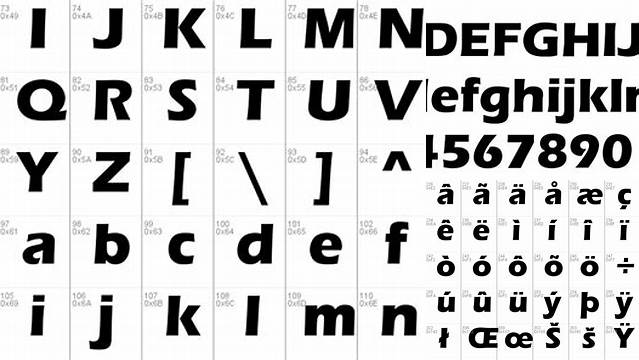
Free ITC Eras Bold Font: Your Guide
ITC Eras Bold Font: A Deep Dive into a Timeless Classic
Alright, first things first: What is ITC Eras Bold? In a nutshell, it's a bold, clean sans-serif font that's been a design staple for decades. Think of it as a versatile workhorse – equally at home in headlines, body text, and everything in between. This typeface, designed by Albert Boton and published by ITC (International Typeface Corporation) in 1988, is characterized by its strong, geometric forms and easy readability. It's a font that grabs attention without being overly fussy, making it a great choice for a wide range of projects, from branding to websites. The ITC Eras family actually has a range of weights and styles, but the Bold version is particularly popular for its impact and legibility. When you think of ITC Eras Bold, you are likely picturing the font used in several well-known logos and marketing materials. This is because of its clean and modern look. The letterforms are simple and clear, and the bold weight ensures that the font is easily readable from a distance. The font's legibility makes it a great choice for both print and digital media. In today's world, the ITC Eras Bold font remains a favorite choice among graphic designers, marketers, and anyone who needs a reliable and impactful typeface. Its enduring popularity is a testament to its timeless design and adaptability. It's a font that you can always count on to deliver a professional and polished look. The font has a bold and sturdy appearance, making it perfect for headings, titles, and other attention-grabbing elements. It offers a balance of elegance and boldness, making it ideal for conveying a sense of confidence and sophistication. The font's versatility allows it to be used across a wide range of design projects. Whether you're working on a website, a brochure, or a presentation, the ITC Eras Bold font is a fantastic choice. The font’s versatility also lends itself well to various design styles. It can be used in minimalist designs, as well as more complex layouts. Its clean lines and strong presence ensure that your message will be clear and impactful. Many designers appreciate the ITC Eras Bold font because it is easy to read and looks great in a variety of contexts. Its adaptability makes it a great investment for your design library. The use of the ITC Eras Bold font is a sure way to add a touch of sophistication and style to your designs. It gives a clean and modern look that complements any project. The font provides a professional appearance that enhances readability and clarity. When choosing a typeface, you can't go wrong with the ITC Eras Bold font. It provides both style and practicality. Its consistent presence in the design world is a testament to its enduring appeal. It is also a great choice for designers who want to deliver a strong message. The boldness of the font adds a sense of authority. Many designers and businesses use the ITC Eras Bold font to create a strong brand identity. It's a tool that will always be relevant in your creative toolkit. ITC Eras Bold’s versatility means it works well for both print and digital media. You can use it in a variety of projects, including brochures, websites, and presentations. It is a popular choice for a reason. The font's clean lines and bold presence ensure that your message will be clear and impactful. If you are a graphic designer or someone who appreciates good design, then the ITC Eras Bold font is a great choice. It is a versatile and reliable typeface that will serve you well for years to come. It is truly a classic font. The font is suitable for both formal and informal designs. Its adaptability to different design styles is one of its most appealing features. Consider using the ITC Eras Bold font for your next project. Its simplicity and strength make it a great choice. The font is also an easy read. This ensures that your audience can easily understand your message. The ITC Eras Bold font is a fantastic choice for anyone looking for a timeless and impactful typeface. This font is always a reliable option. The ITC Eras Bold font makes any design look professional and stylish.
Exploring the History and Design of ITC Eras Bold
The story of the ITC Eras Bold font began in the late 1980s. Albert Boton, the brilliant designer behind it, envisioned a typeface that was both modern and functional. He succeeded in crafting a font that was clean, clear, and instantly recognizable. The ITC (International Typeface Corporation) released it to the public, and the font quickly gained popularity. The font's clean design and readability were perfect for the evolving design landscape. Its simple, geometric letterforms were a breath of fresh air compared to the more ornate typefaces of the time. This font offered a sense of modernity that resonated with designers. The design of the font is characterized by its bold weight, which makes it stand out. The font’s proportions make it both attractive and easy to read, which is important for both display and body text. The rounded terminals of the letters and the consistent stroke weights contribute to its overall clarity and visual appeal. The bold style is especially well-suited for headlines, titles, and other design elements that need to capture attention. Its design made it an immediate hit. The font was widely used in marketing materials, corporate branding, and editorial design. The font was seen everywhere, from magazine layouts to billboards, to computer screens. The ITC Eras Bold font's adaptability made it a favorite among designers. It was easy to incorporate into various design projects. The font’s strong presence was perfect for making a statement. Many designers consider this font to be timeless. The font's design continues to influence contemporary typography. Its design elements have become a model for other typefaces. The impact on the design world remains considerable. The ITC Eras Bold font is one of the most influential typefaces. The font remains relevant in design due to its inherent qualities. The design of the ITC Eras Bold font has influenced countless designers and projects. Its impact is still felt today.
Identifying the Characteristics of ITC Eras Bold
So, what exactly makes ITC Eras Bold font so recognizable and effective? Let's break down its key characteristics. Firstly, it's a sans-serif font, meaning it lacks the small decorative strokes (serifs) at the end of each letter. This gives it a clean, modern look. The font's geometric shapes are another key feature. The letters are constructed with strong, simple lines and curves, resulting in a balanced and easily readable design. The bold weight is a crucial element. It gives the font a strong presence. This makes it ideal for headlines and display text, ensuring it grabs attention. The font is designed with excellent legibility, which is especially important for body text. This is true across various sizes and contexts. The ITC Eras Bold font offers consistent spacing, which further enhances readability. The spacing between the letters and words is carefully designed to create a harmonious visual experience. The font's versatility is another defining feature. It works well in both print and digital media. The font adapts well to a wide variety of design projects. This includes website design, branding, and marketing materials. The neutrality of the ITC Eras Bold font is also key to its appeal. It doesn't lean towards any particular style. This allows it to be used in diverse design contexts. Whether you want a minimalist look or a more complex layout, this font can adapt to your needs. Its clean lines and bold presence make it a great choice for any project. Its ease of use is a huge advantage, which is one of the reasons it's been a favorite among designers. The font is a reliable and effective choice for any project. Designers often choose the ITC Eras Bold font because of its versatility. Its simple yet impactful design makes it suitable for many different contexts. The font's clean lines are easy to read, and its bold weight ensures that your message will be noticed. The font stands out because of its clarity. The font also helps convey a sense of professionalism. This ensures that your message is delivered with impact and style. The ITC Eras Bold font remains a powerful design tool.